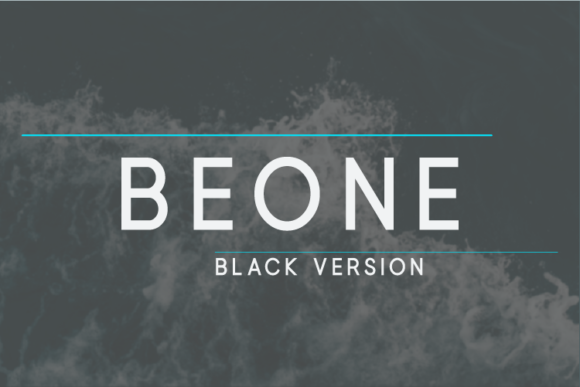
Dive into the world of typography with Beone Black, a sans serif font that embodies elegance and sophistication. Crafted by the renowned Nan Design, this typeface exudes a modern aesthetic, perfect for contemporary branding, packaging designs, and any project seeking a touch of understated luxury.
Beone Black's clean lines and smooth curves evoke a sense of professionalism and refinement. Its versatile character lends itself to a wide range of applications, from simple logos to intricate designs. Whether you're a graphic designer, marketer, or business owner, this font will elevate your creations to new heights.
Indulge in the creamy neutral shades that inspired Beone Black. Its subtle nuances add a touch of warmth and charm to any design, creating a calming and inviting atmosphere. Embrace the minimalist branding trend with this font, which effortlessly conveys a sense of sophistication and style.
Embrace the allure of Beone Black and watch your designs transform into works of art. Its timeless appeal and versatility make it an essential addition to any typographic toolkit. Experience the beauty of modern typography with Beone Black and elevate your projects to new levels of excellence.